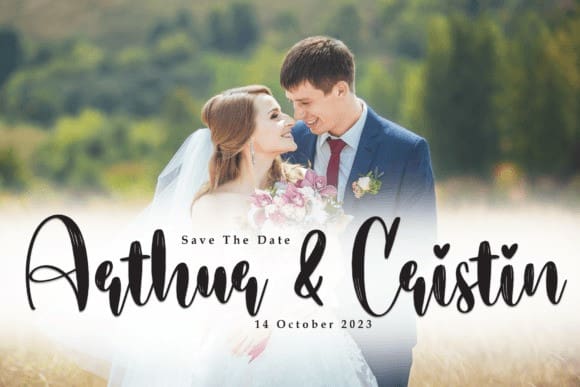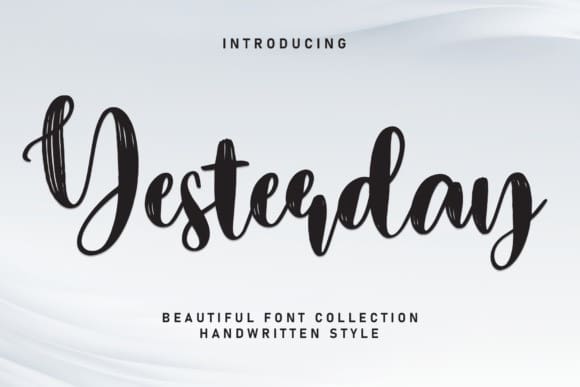
Yesterday Style Brush Font
Yesterday Style Brush Font is a stylish and incredibly elegant script font. It looks stunning on wedding invitations, thank you cards, quotes, greeting cards, logos, business cards and every other design which needs a handwritten touch.